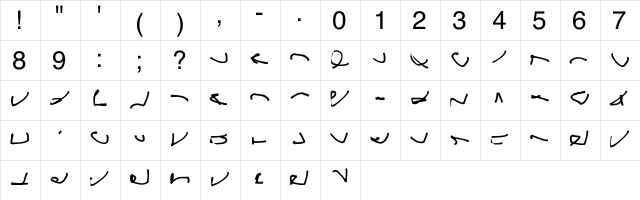
Enthing Regular
Design Context for Enthing Typeface
Enthing is a composed and adaptable typeface that performs quietly and consistently across a wide range of design contexts. The delicate stroke weight brings airiness and refinement to layouts.